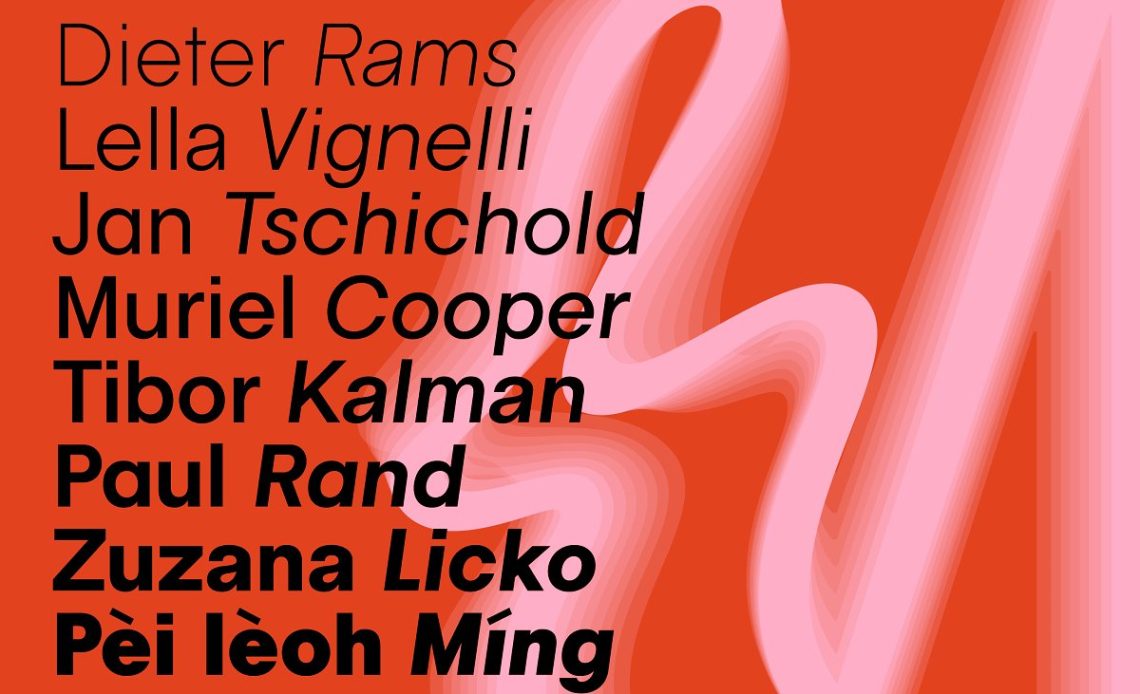
Introducing the 60% OFF Binocular Sans Font Family, the perfect blend of modernist geometric sans serifs and neo-grotesques, created by Outfit IRL. With its dual identity, this sans serif type family embraces individuality and celebrates the beauty of hybridization and cross-cultural identity.
Are you ready to stand out from the crowd? Binocular Sans is your ticket to captivating design. Whether you need eye-catching headlines, timeless logotypes, or authoritative wayfinding, this font family has got you covered. Its tall x-height and optimized spacing ensure excellent usage in both subheaders and long-form text.
But that's not all! Binocular Sans offers a world of possibilities with its extensive features. With 16 styles, including eight weights and corresponding italics, you have the flexibility to create stunning designs. Explore the 26 highly expressive stylistic alternates to add a touch of uniqueness to your projects.
Language barrier? Not a problem. Binocular Sans supports over 100 languages, making it perfect for your global projects. And with over 640 glyphs, including standard ligatures and contextual alternates, you have all the tools you need to create visually stunning and engaging content.